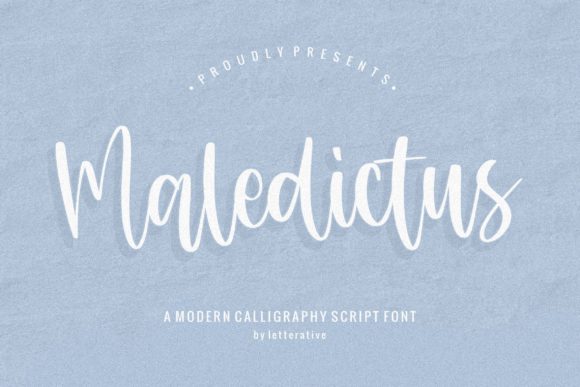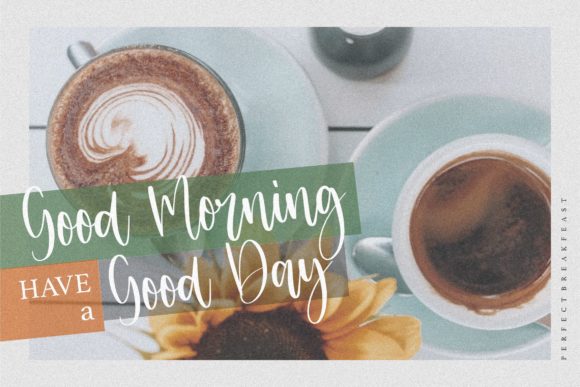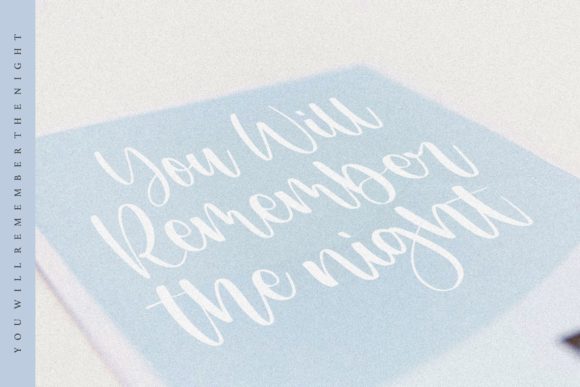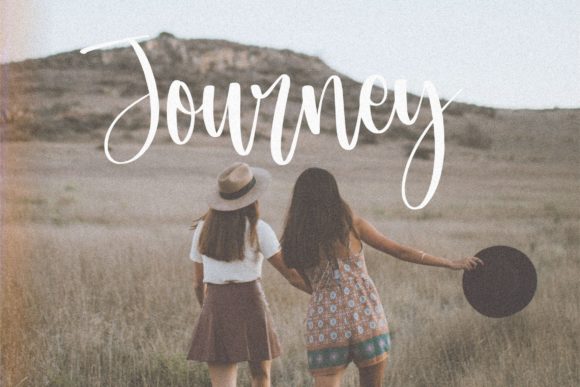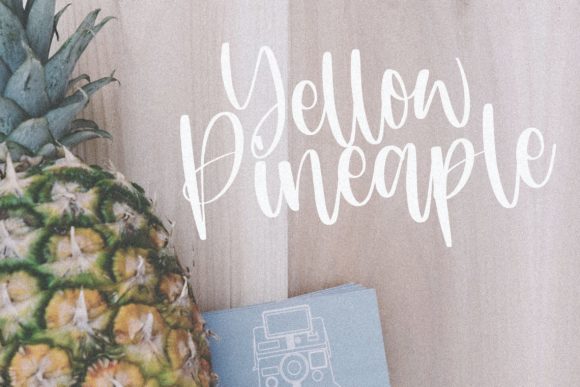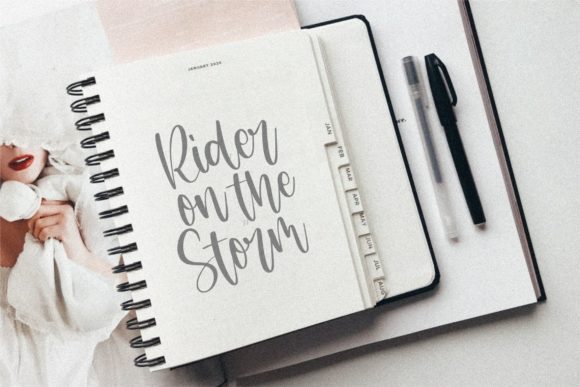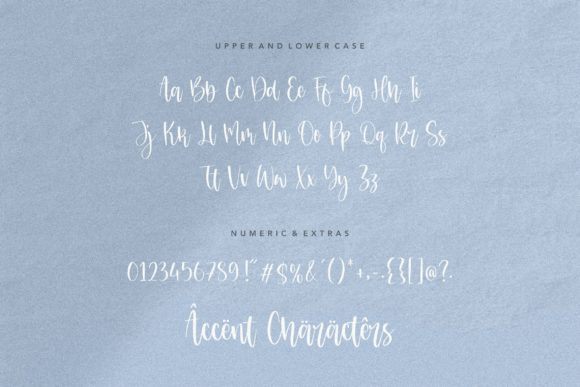
Maledictus Font
About Maledictus Font
Maledictus is a sweet and round lettered handwritten font that exudes a delightful and joyful charm. With its soft curves and playful strokes, this font adds a touch of sweetness and personality to any design.
One of the notable features of Maledictus is its round and friendly letterforms. The gentle curves and smooth lines give the font a warm and inviting feel, making it particularly well-suited for projects that aim to evoke a sense of romance and intimacy. Whether you’re creating wedding invitations, love letters, or heartfelt cards, Maledictus will bring a romantic and personalized touch to your designs.
The versatility of Maledictus allows it to be used in various design contexts. Its handwritten style adds an authentic and human touch, making it ideal for expressing emotions and personal messages. From digital designs to print materials, Maledictus can be applied to a range of projects, including branding, social media graphics, packaging, and more.
Maledictus’s round letterforms and smooth strokes contribute to its overall friendly and approachable nature. It creates a warm and inviting atmosphere, making it suitable for designs that aim to connect with the audience on a personal level. The font’s inherent charm and playfulness make it a great choice for projects targeting a wide range of audiences, including children and families.
Incorporating Maledictus into your designs allows for customization and personalization. You can experiment with different lettering styles, including ligatures, alternate characters, and swashes, to add further flair and uniqueness to your compositions. The font’s versatility and PUA encoding make it easy to access these additional features, allowing you to create truly customized designs.
When working with Maledictus, consider pairing it with complementary fonts to enhance its visual appeal. Combining it with serif or sans-serif typefaces can create a pleasing contrast and balance in your designs. Additionally, you can play with different sizes and weights to create hierarchy and emphasis within your layouts.
In terms of color, Maledictus works well with a range of palettes. Soft pastel shades can enhance its delicate and romantic nature, while bold and vibrant colors can make a statement. Choose colors that align with the mood and message of your design to create a harmonious and visually appealing composition.
Overall, Maledictus is a sweet and round lettered handwritten font that brings a sense of joy and intimacy to your designs. Its dainty and charming style makes it perfect for wedding invitations, cards, and any project that requires a romantic and personalized touch. Let Maledictus infuse your designs with warmth and delight, making them truly memorable and heartfelt.